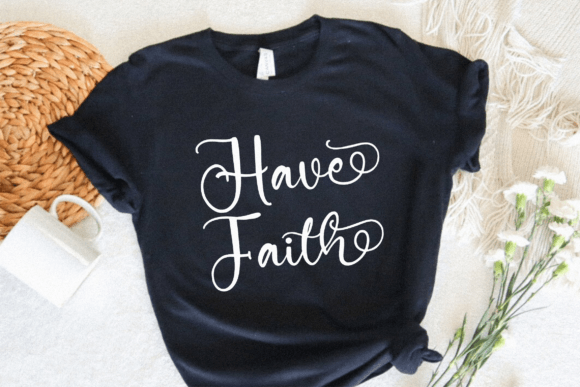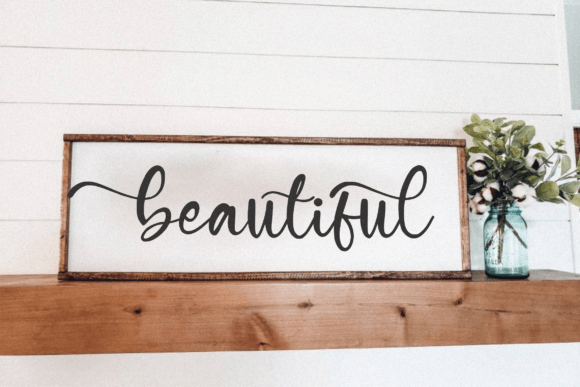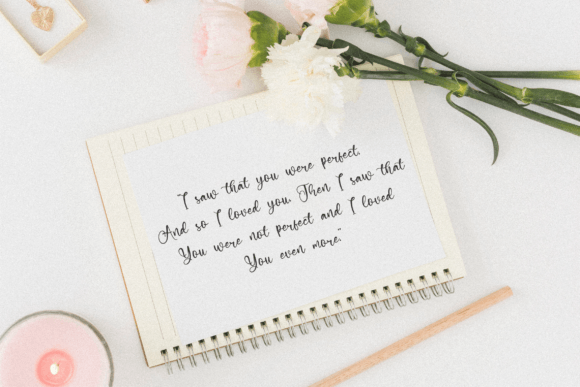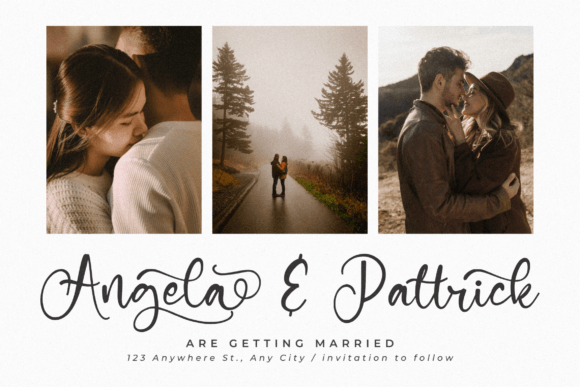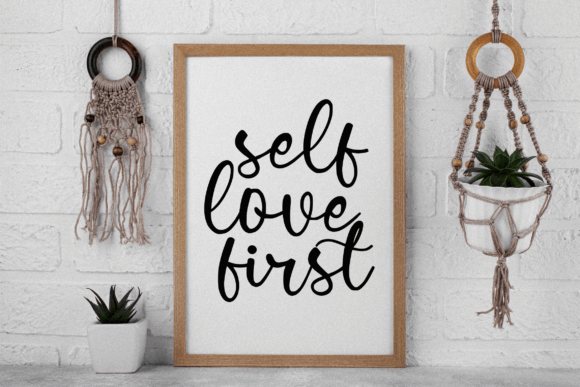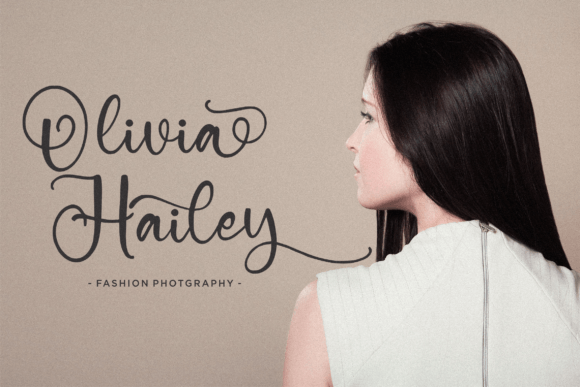
Unleashing Your Creativity with the Beautymind Font
Have you ever found yourself lost in a sea of design ideas, searching for that perfect font to bring your project to life? I know I have! As a designer, I’ve spent countless hours scouring through font libraries, only to be met with the same old generic options. But what if I told you there’s a font that can change the game for you?
| 👤 Author | qwrtypefoundry |
Enter the Beautymind Font, a stunning Modern Handwritten Font that’s perfect for product packaging, branding projects, magazines, social media, weddings, or just used to express words above the background. This font is a game-changer for designers, offering a unique and elegant touch to any design project. With its PUA encoded feature, you can access all the amazing glyphs and ligatures with ease, taking your designs to the next level.
Key Features of Beautymind Font
- Unique Characteristics: Beautymind Font features a unique blend of elegance and sophistication, making it perfect for use in beauty, wellness, and lifestyle branding, as well as in fashion and luxury designs.
- Font Weight and Style: The font is available in various weights, including light, regular, medium, bold, and extra bold, allowing designers to create a range of visual effects and emphasis.
Beautymind Font Review
Overall, I’m impressed with the Beautymind Font, but it’s not without its quirks. Let’s dive in.
- Unique and playful style that’s perfect for creative projects.
- Excellent legibility, making it suitable for body text and headings.
- Supports a wide range of languages, making it a great choice for multilingual projects.
- Lack of bold and italic font weights can limit its use in certain situations.
- Some characters may appear too decorative, which can be distracting in certain contexts.
- Not suitable for professional or formal projects due to its playful and whimsical nature.
Beautymind Font is a great choice for creative projects that require a unique and playful touch. While it has its limitations, it’s a solid addition to any designer’s toolkit. With some careful consideration of its use cases, it can add a lot of personality to your designs.
Getting the Most Out of Beautymind Font
Experiment with different font styles and sizes to create visually appealing text effects. Use the font in combination with other design elements to create a cohesive look. Consider using the font in bold or italic styles to add emphasis to certain words or phrases.
Use the Beautymind Font for titles, headings, and body text in your designs. It’s particularly suitable for creative and editorial projects, such as magazines, blogs, and social media graphics. You can also use the font to create eye-catching text effects for presentations, posters, and flyers.